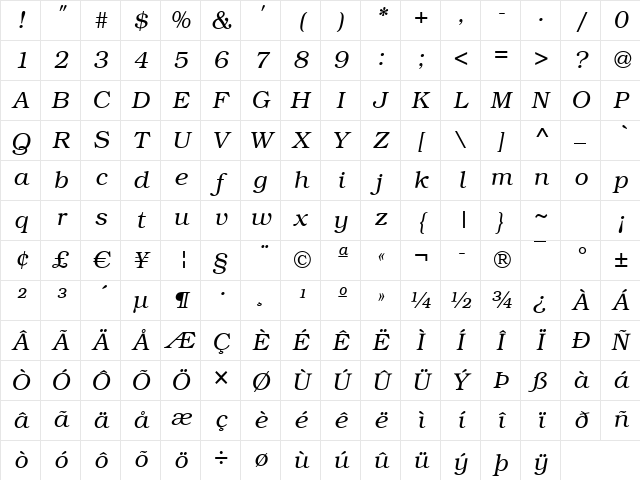
Book-PS Italic Free Font
Book-PS Italic
Book-PS Family
Design Context for Book-PS
Book-PS is a composed and adaptable typeface that performs quietly and consistently across a wide range of design contexts. The slanted form adds forward momentum and visual energy.